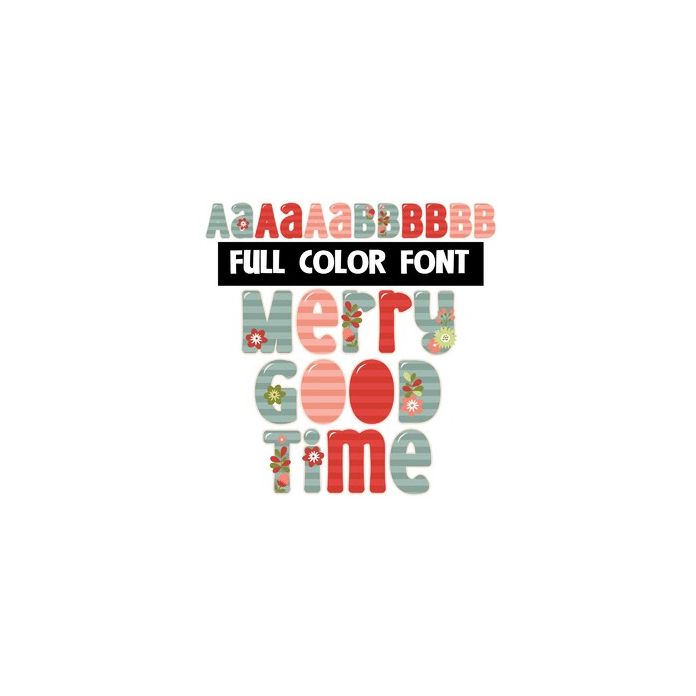
This full-color font features a Christmas color palette, stripes, and holiday florals. There is a an alt version w/ 2nd and 3rd colors available through your system's or Silhouette's glyph map.